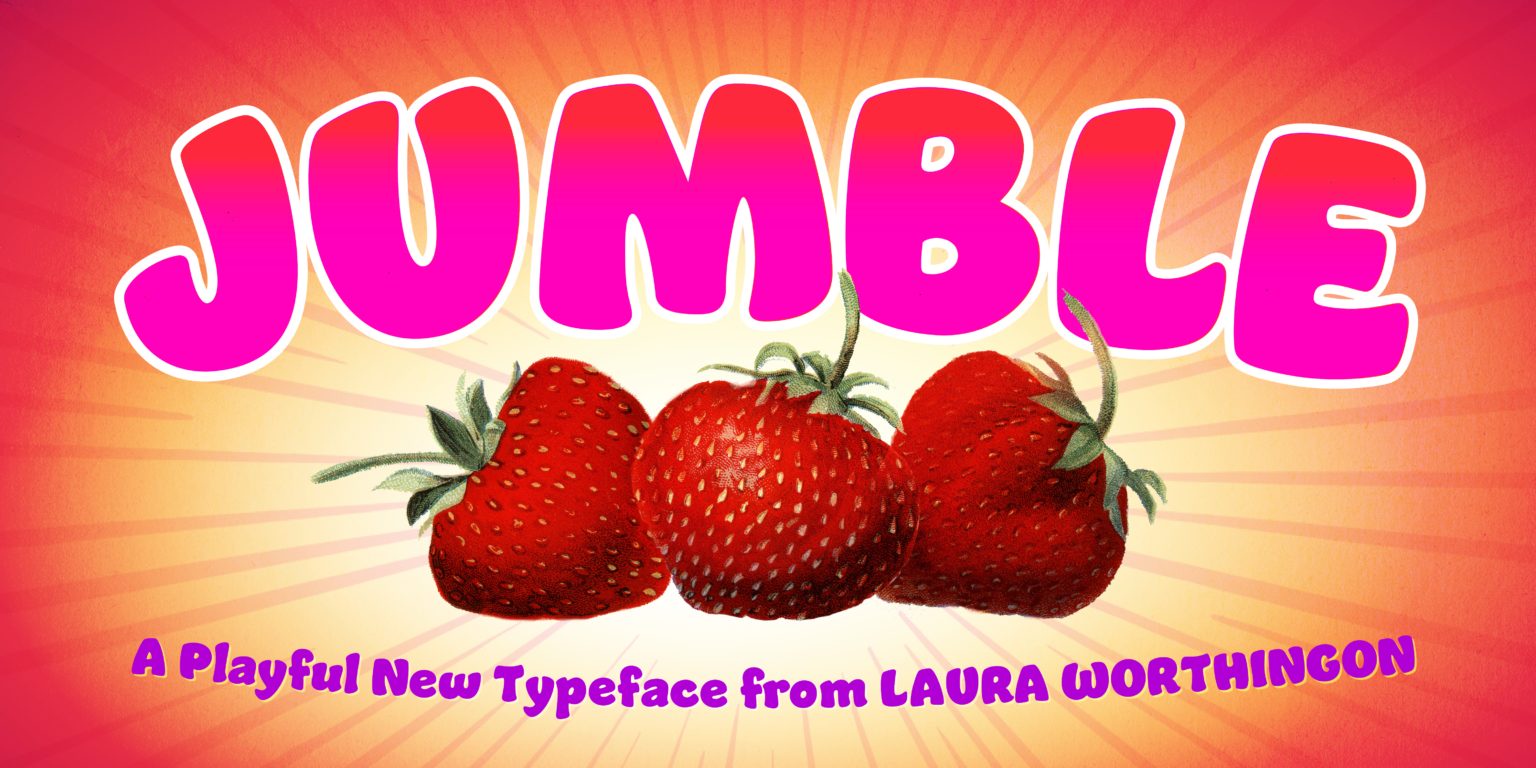
Jumble Font
Jumble Font is perfect for puzzle game branding, children's activity books, creative chaos marketing campaigns, mixed-up fun promotions, word scramble publications, playful education materials, chaotic art installations, and jumbled lifestyle content where creative disorder and playful confusion are embraced.
What makes Jumble Font so exciting is its delightfully chaotic ability to capture the essence of creative disorder through purposefully mixed-up letterforms that embody the joy of solving puzzles and embracing beautiful chaos while maintaining surprising readability despite its scrambled appearance. The playful character design reflects the cognitive stimulation and creative thinking that emerges from organized confusion and puzzle-solving challenges.
The Jumble Font family includes regular, bold, extra scrambled, and puzzle variants, with mixed-up decorative elements and chaos-inspired ornaments that provide comprehensive tools for creating authentic puzzle branding and creatively disordered design systems.
This entertaining typeface represents the celebration of creative chaos, combining puzzle-solving tradition with contemporary game design requirements. The Jumble Font Free Download gives puzzle creators access to typography that communicates playful challenge and cognitive entertainment.
The font's deliberately jumbled character arrangements and chaotic proportions create immediate associations with word puzzles and brain-teasing games. Each letterform has been designed to evoke the satisfying confusion and mental stimulation that defines quality puzzle experiences and creative problem-solving activities.
Jumble Font excels in creating engaging communications that challenge minds and inspire playful interaction with text. The typeface's chaotic character makes it ideal for game designers, educational publishers, and entertainment companies targeting audiences who enjoy mental challenges and creative thinking exercises.
From crossword magazines to escape room marketing, this font brings puzzle authenticity that appeals to audiences seeking mental stimulation and playful cognitive challenges. The versatile design maintains its jumbled character across both traditional puzzle publications and modern digital game platforms.